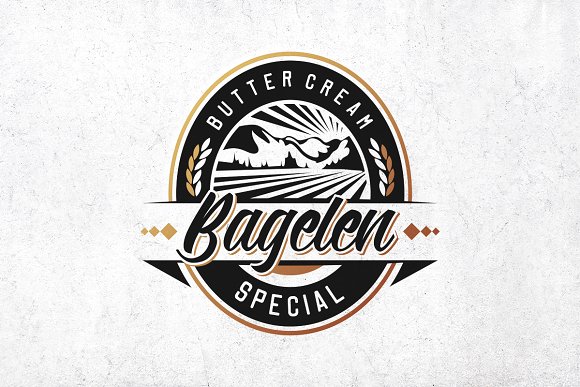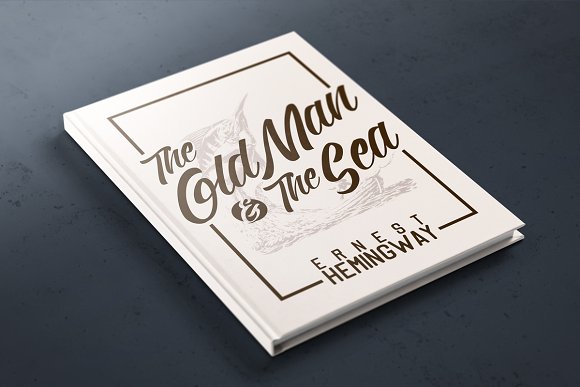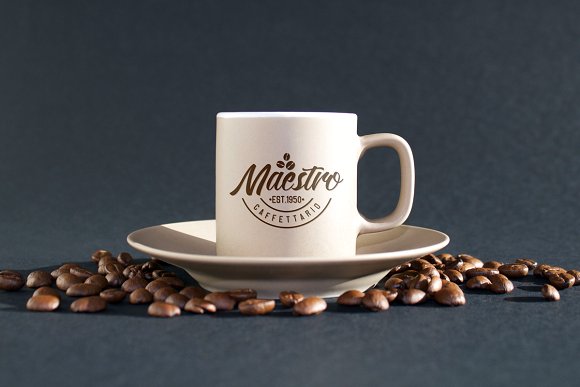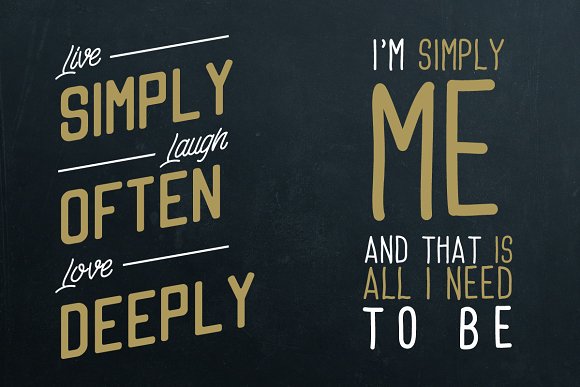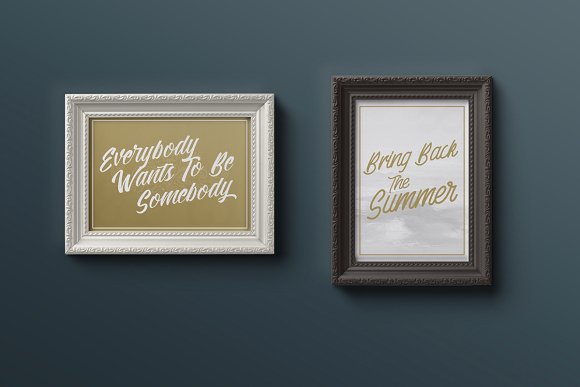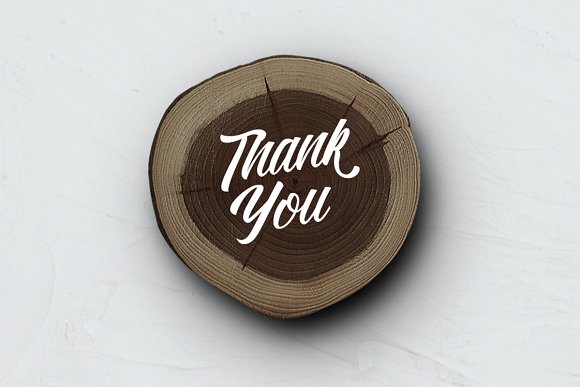
Kadisoka Font
About Kadisoka Font
The Kadisoka font pack is a stunning pack that comes in 5 variations:
Kadisoka Script: The main font file of this pack with over 680 unique glyphs. Packed with open type features.
Kadisoka Monoline: A monoline font with over 180 glyphs.
Kadisoka Sans: A neat, complementary typeface which is perfect to combine with the other fonts in this pack.
Kadisoka Hand: A hand-written font which is perfect for casual, playful projects.
Kadisoka Swashes: A font with stunning soothing swashes and catchwords.